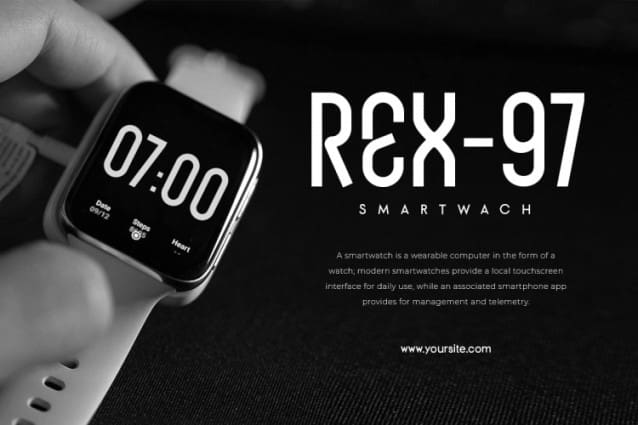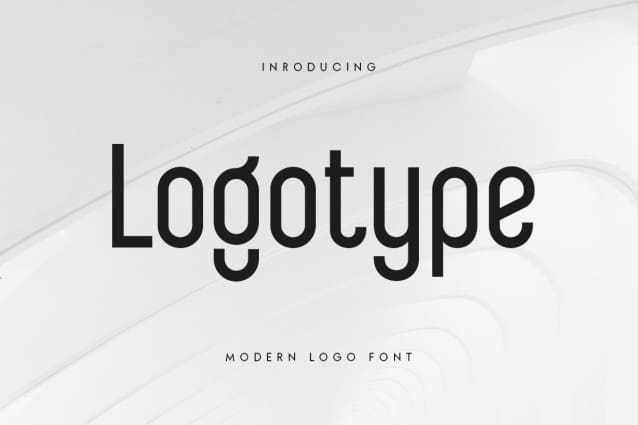
Logotype Font
Logotype Font is Modern Logo Font is a well-balanced modern font with a minimalist, unique, and iconic sans serif, font that you can combine to get any variations and unique shapes easily just in seconds with choose ligatures of them. It is a sans serif font with minimalist style that perfect for branding projects, logo, poster designs, social media posts, advertisements, product packaging, product designs, label, photography, watermark, invitation, stationery, and any projects, it makes with a high level of legibility.